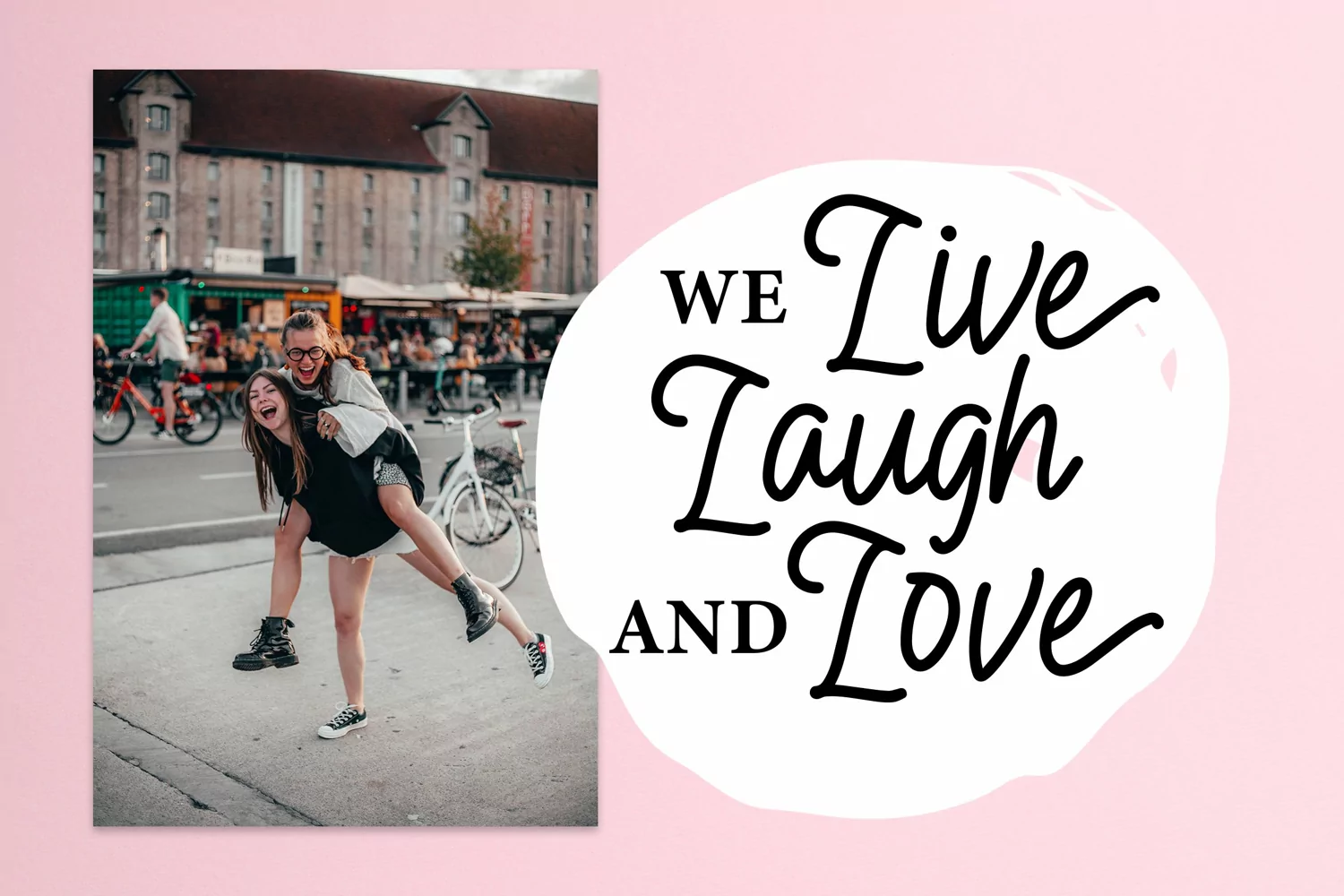
Goodlines - Monoline Handlettering Font that contain lowercase, uppercase, symbol, and also support multi language. There’s a lot ligatures in this font. This Font also comes with ligatures, alternates and many more. this font suitable for fashion, branding, catalog and other design what you want.